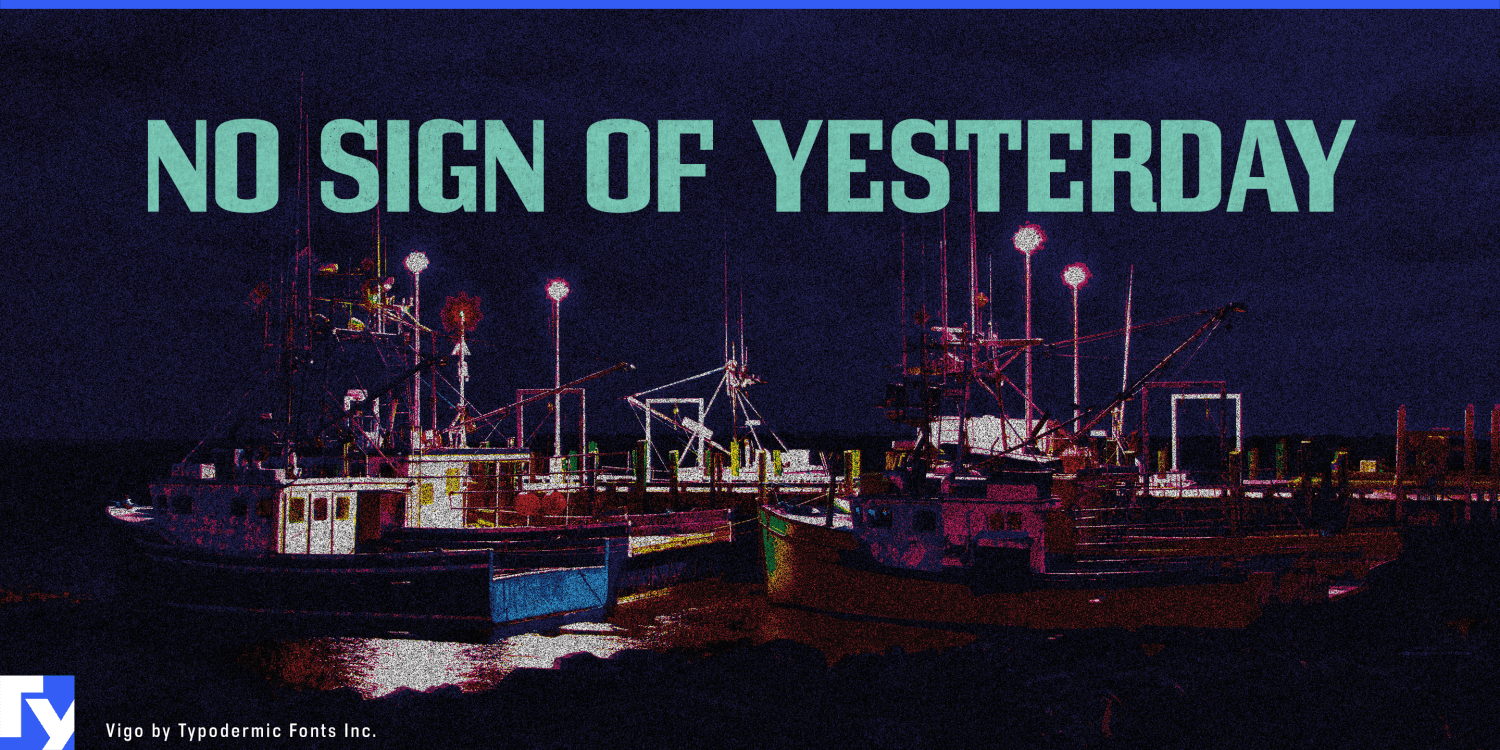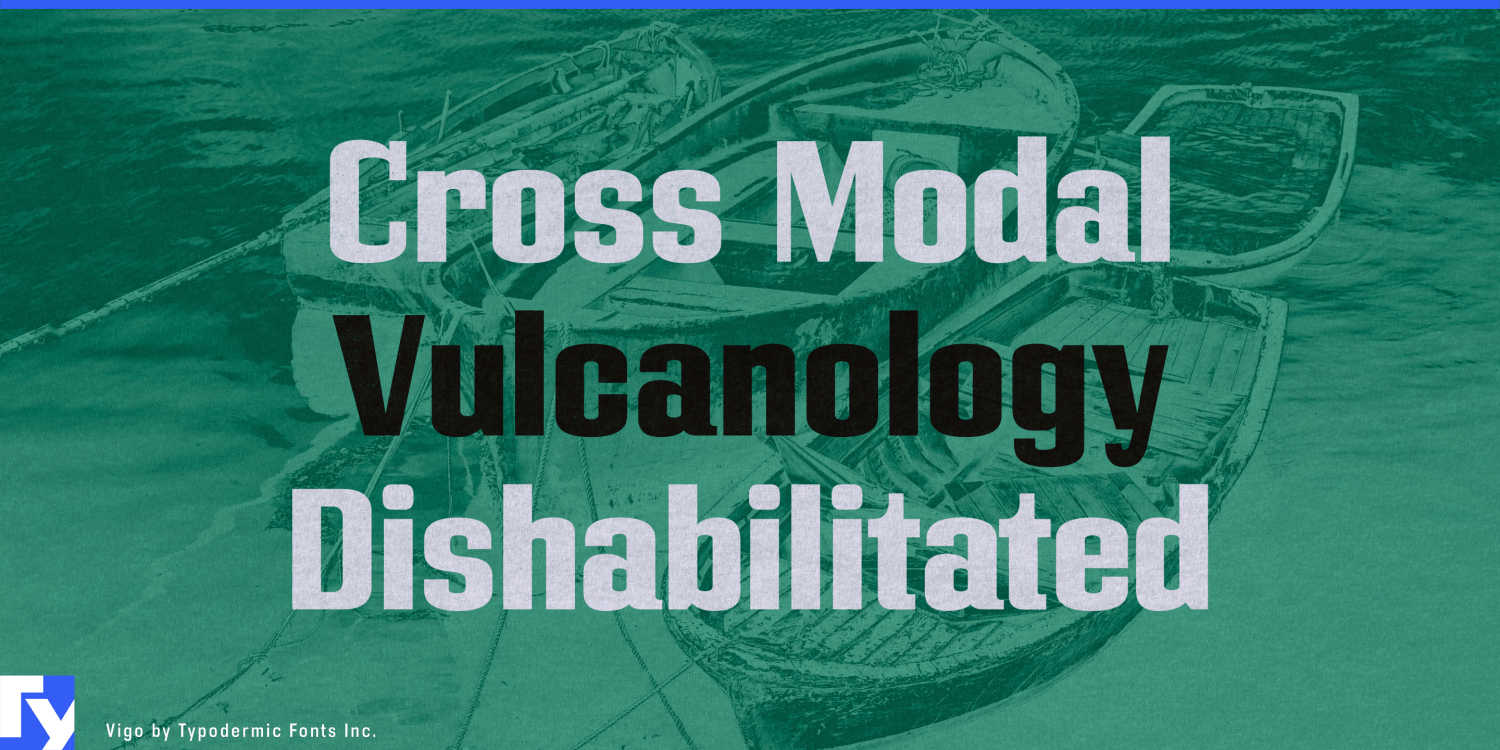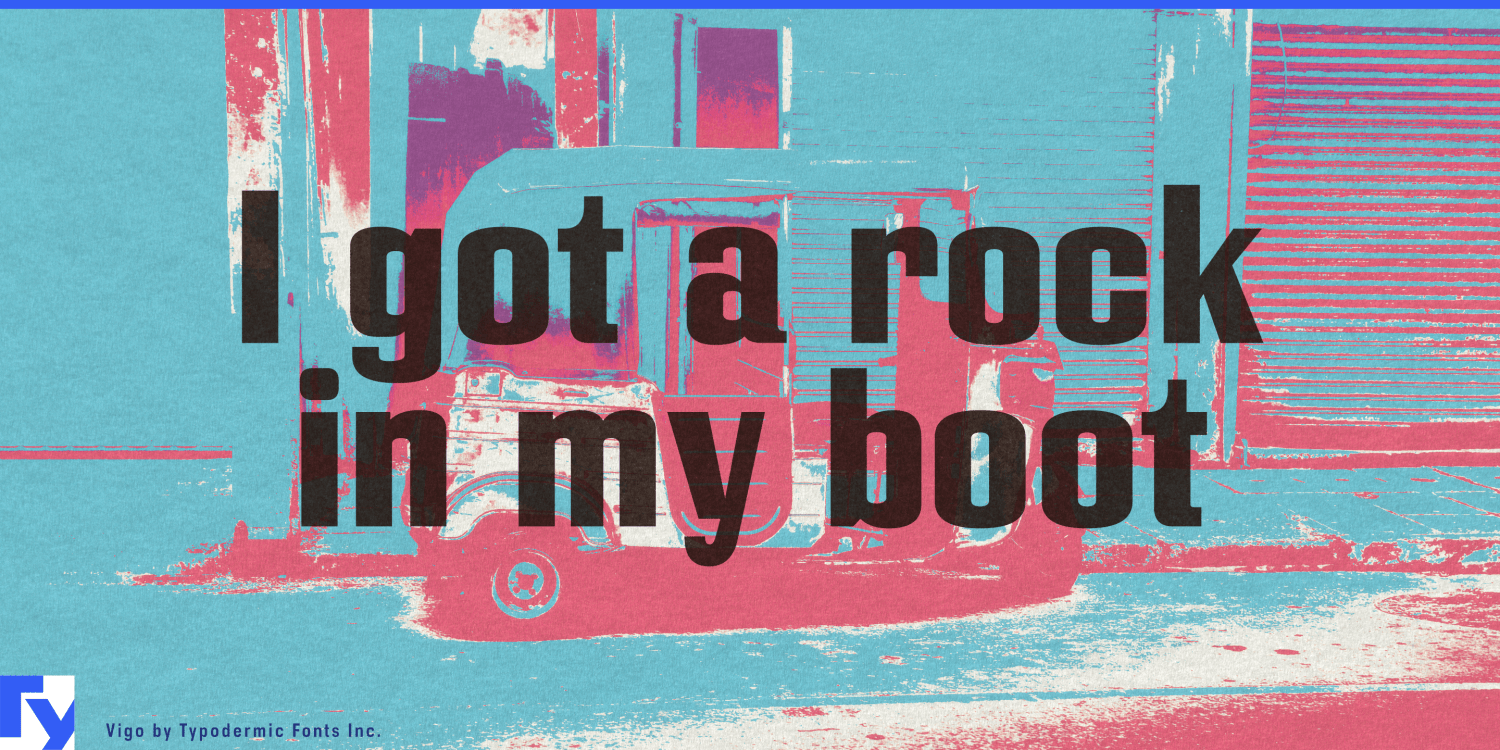
About Vigo
Cruise into timeless style with Vigo, the typeface that blends the charm of vintage scooters with modern typographic precision. This isn’t just a font—it’s a joyride through the streets of design, where slab serifs and sans-serif elements…